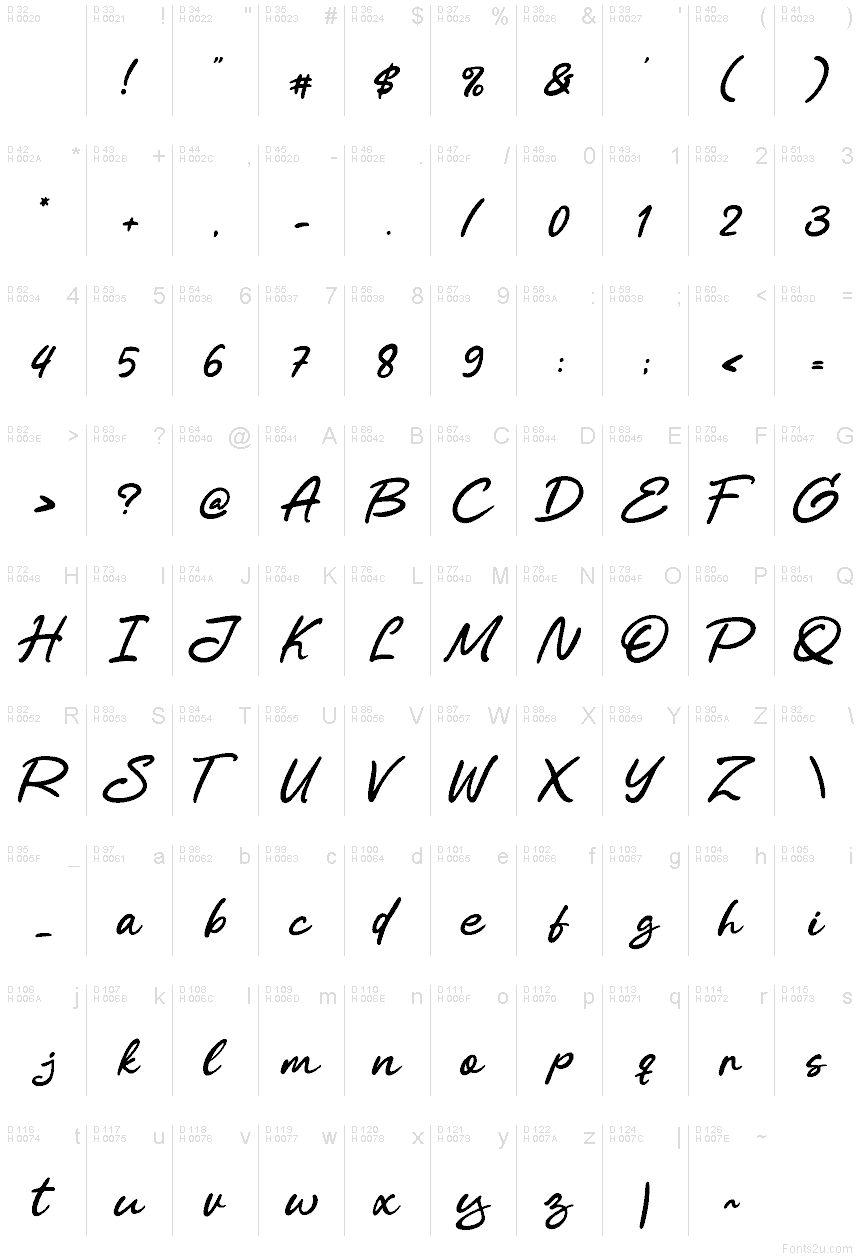
Guadalimar
Guadalimar font by Khurasan is a free handwritten script font that solves a classic headache: getting real handwriting warmth without sacrificing clarity. Its smooth, inky strokes and rounded terminals keep the rhythm even, while the gentle slant and confident joins read cleanly at headline sizes. The result feels personal but polished—no shaky chaos, no sterile stiffness.
Using Guadalimar adds an easygoing signature vibe to logos, product labels, café menus, wedding stationery, social posts, and packaging. The consistent stroke weight and generous curves hold together in short phrases and taglines, making this free font a natural fit for brand voice lines and quotes. Pair with a crisp geometric sans for body copy, and give it a touch of extra line spacing to let the letters breathe.